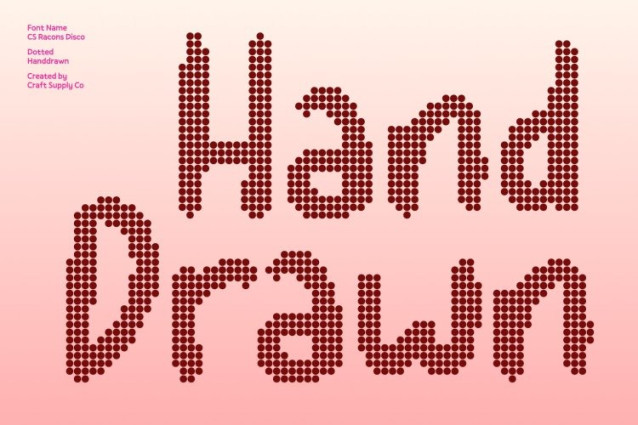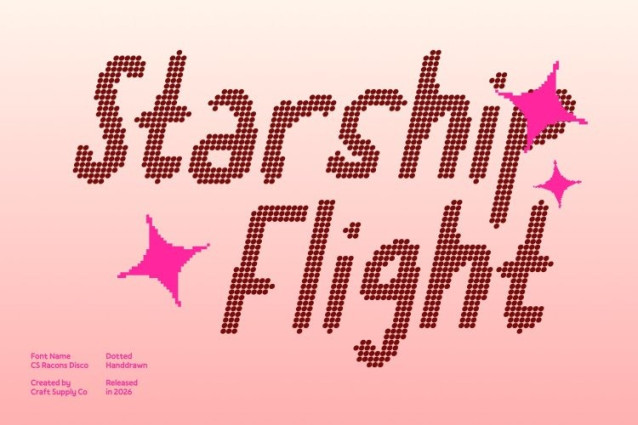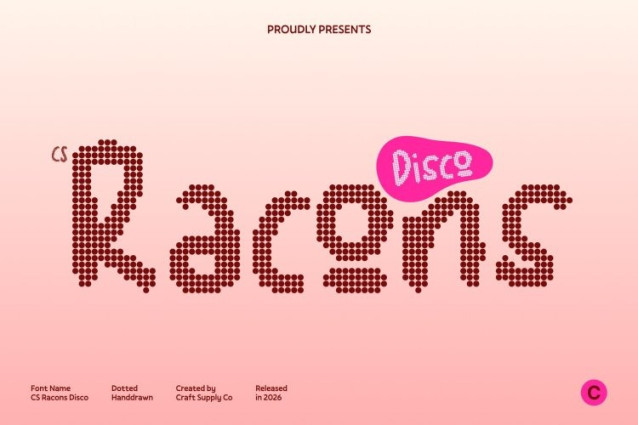
CS Racons Disco Font
CS Racons Disco Font – This is a cute handwritten display font that blends friendly, expressive strokes with a lively disco-inspired dotted texture. Its soft curves and casual handwriting style create a warm, approachable personality, while the sparkling dot pattern adds a festive rhythm that makes every letter feel lively and eye-catching.
Soft Letterforms with Luminous Personality
The rounded, gentle shapes of the font give it a welcoming and cheerful tone. Enhanced with the disco-style dotted texture, each character gains an extra layer of visual excitement while maintaining its natural handwritten charm. The result is typography that feels both handcrafted and playfully vibrant.
Versatile for Creative and Joyful Projects
This font adapts easily across a wide range of creative uses. From posters, invitations, and social media graphics to lifestyle branding and editorial layouts, it adds personality and energy while keeping text readable and visually engaging.
Expressive Design with Friendly Appeal
With its combination of handwritten warmth and shimmering disco detail, this font delivers a playful yet stylish typographic voice. It’s perfect for projects that aim to communicate joy, creativity, and approachability while standing out with a distinctive decorative touch.